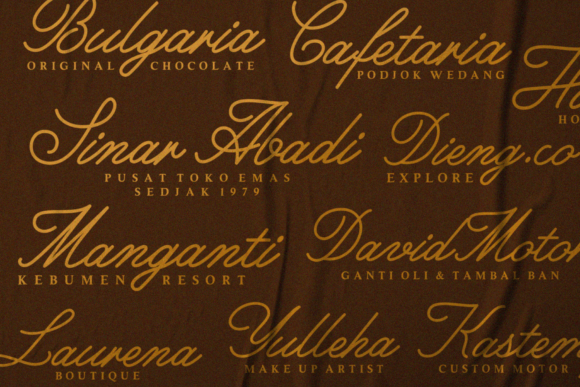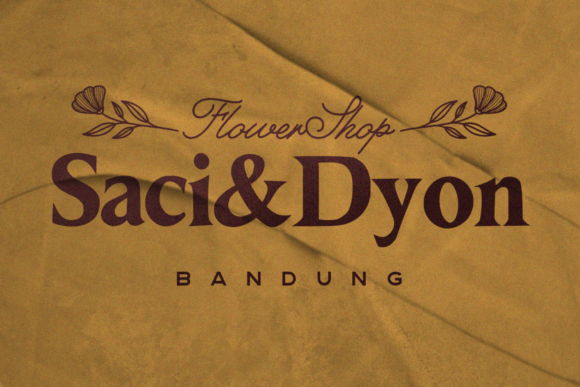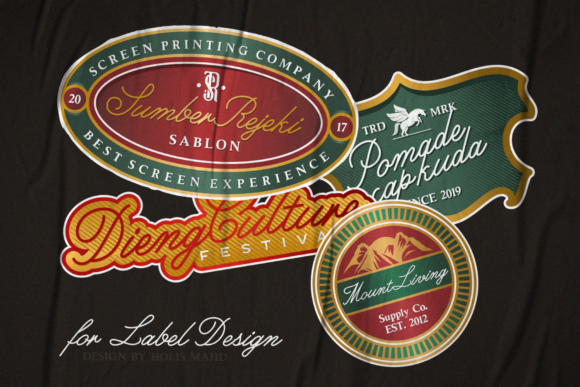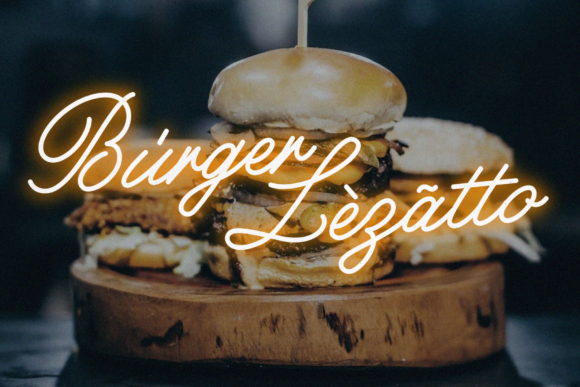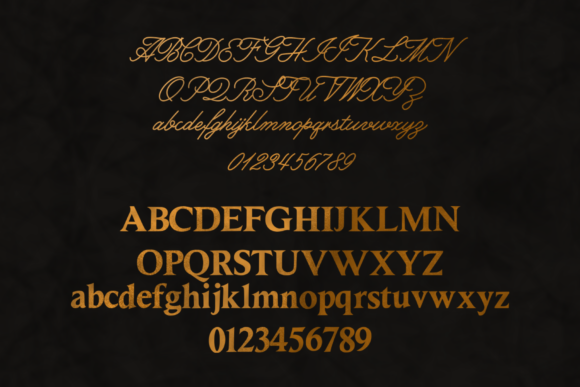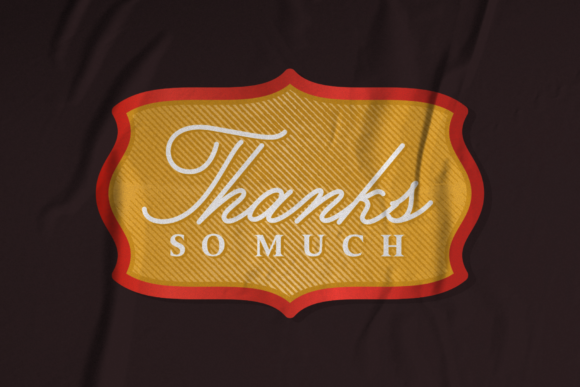
Introduction to Maghnoyha Duo Font
Maghnoyhais a gorgeous font duo combining an authentic script and an elegant serif font.
Combine them and achieve stunning results .
Key Features of Maghnoyha Duo Font